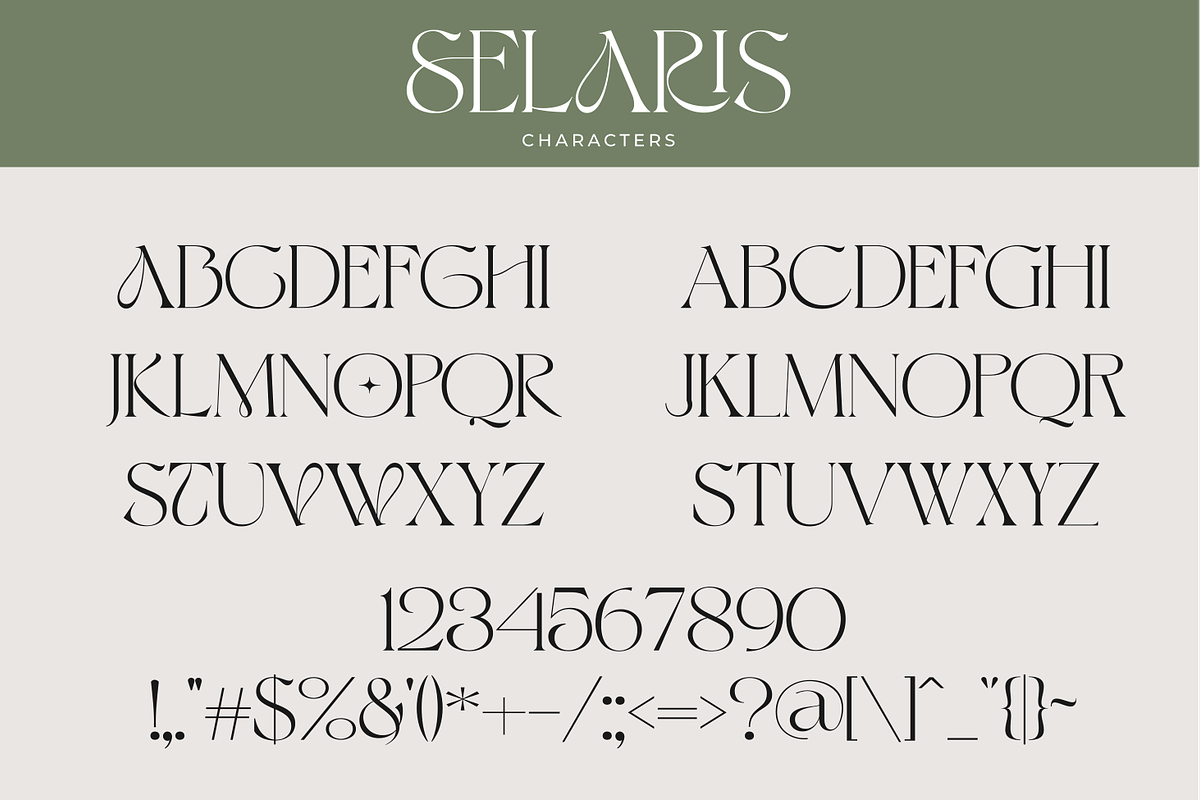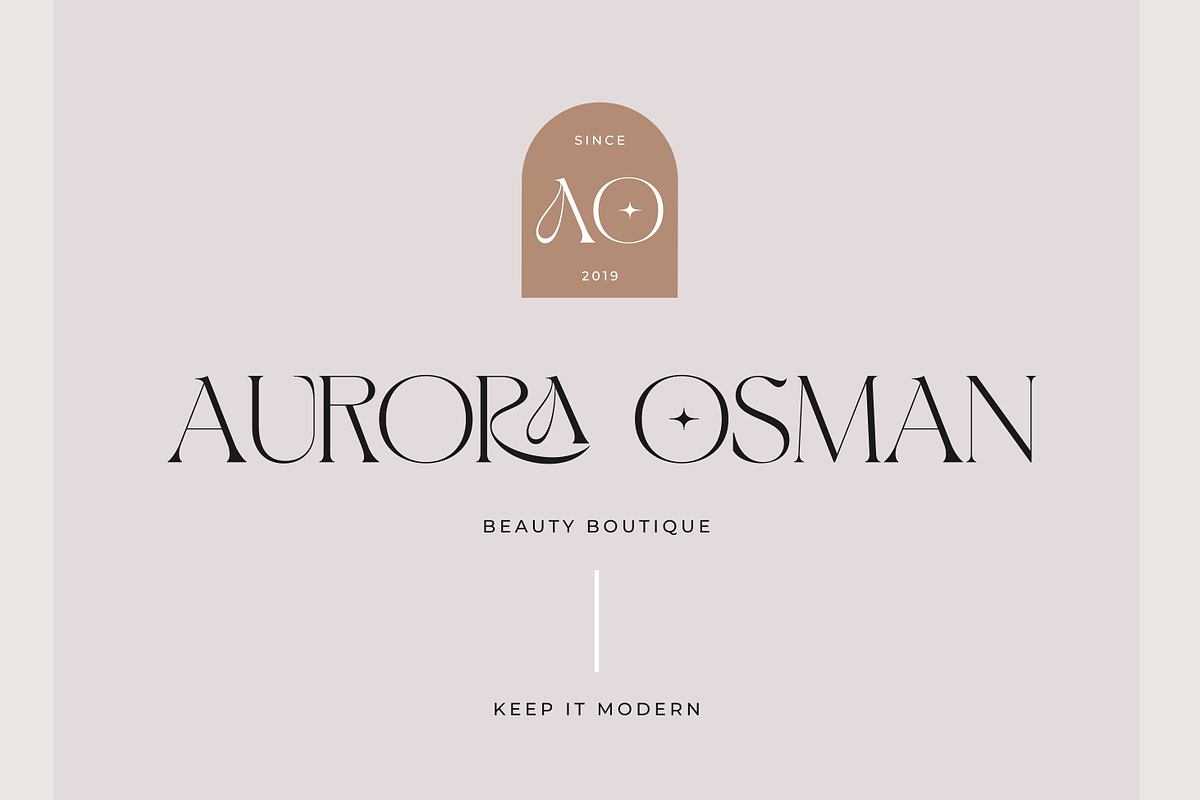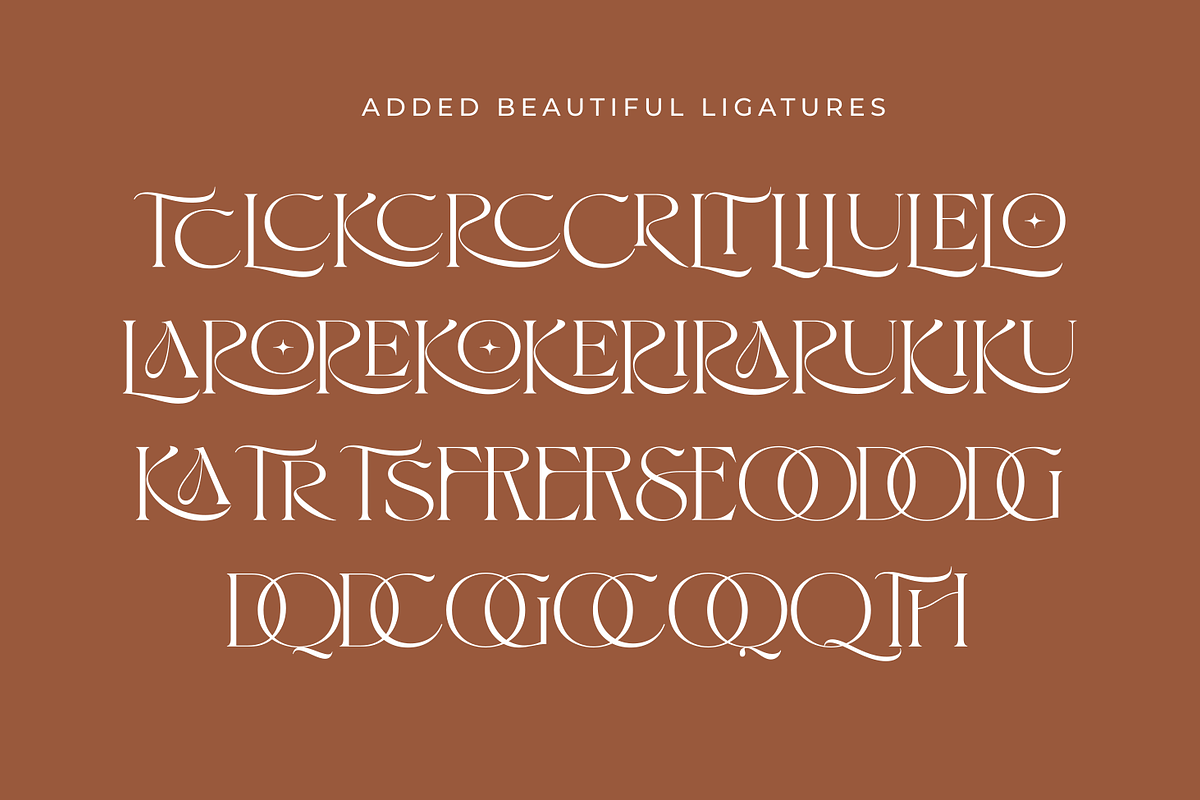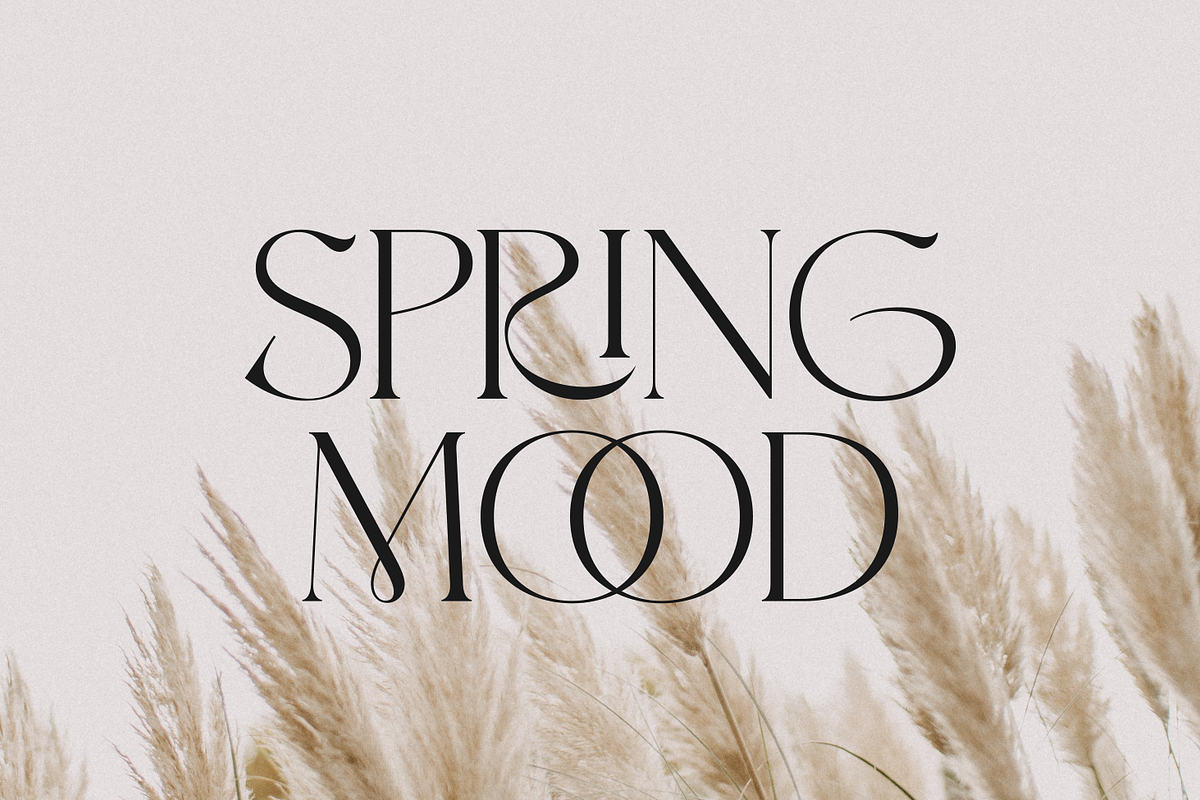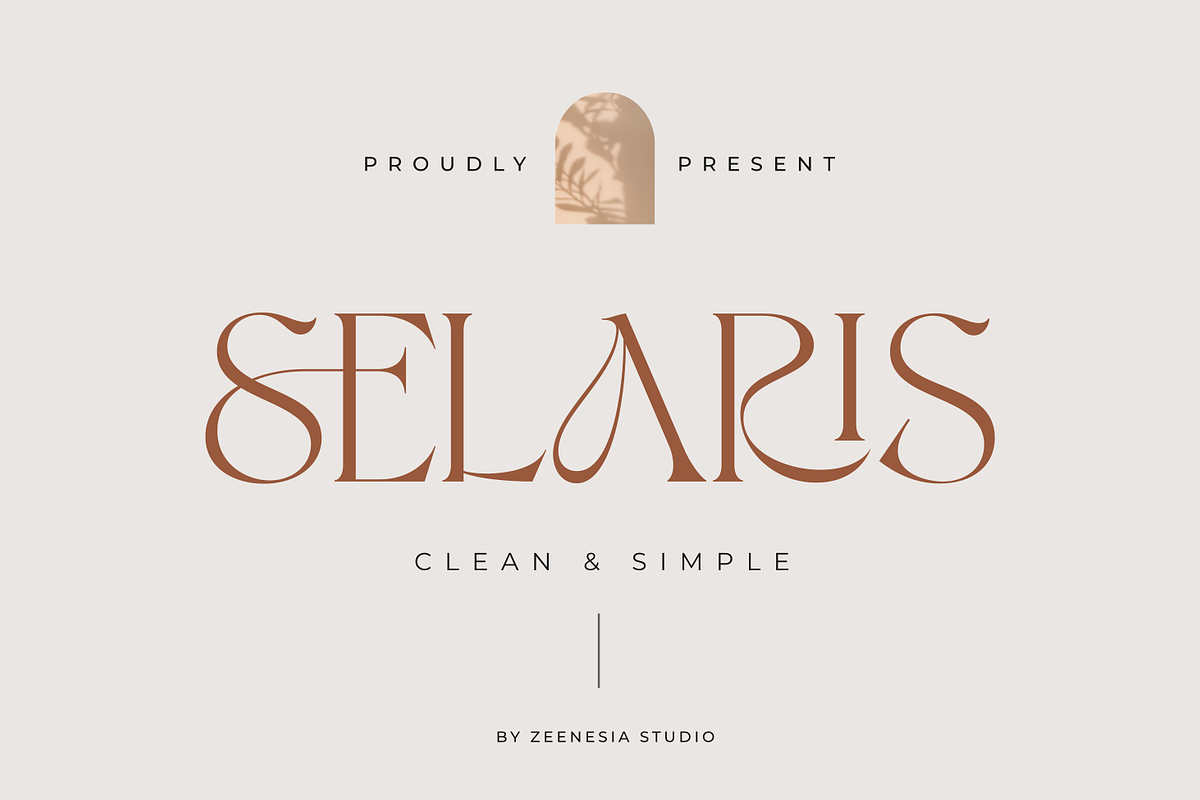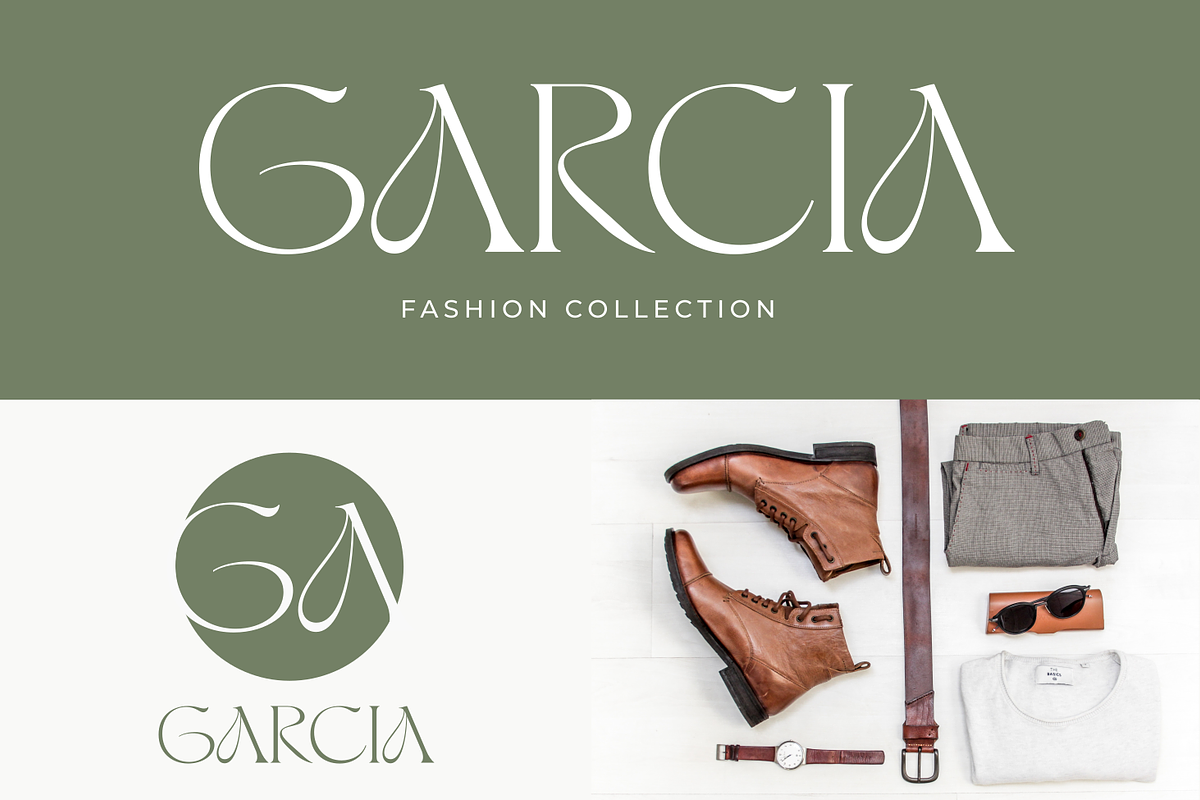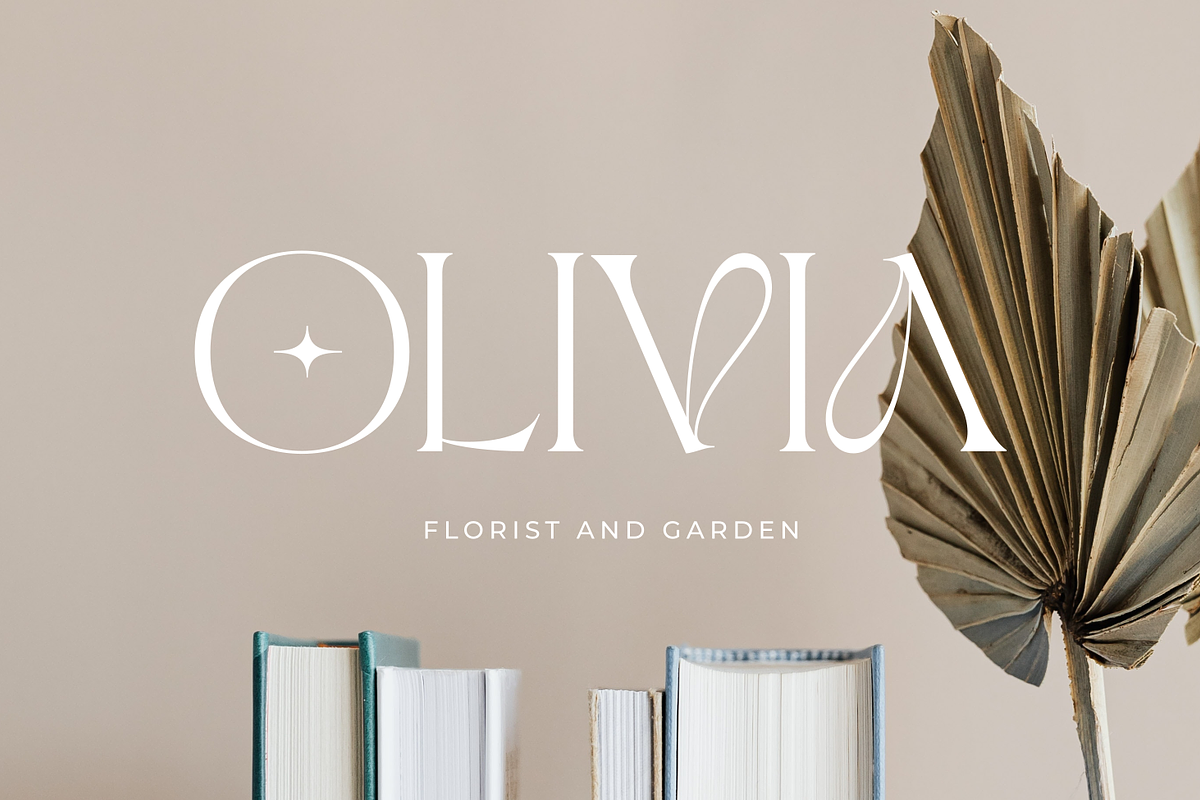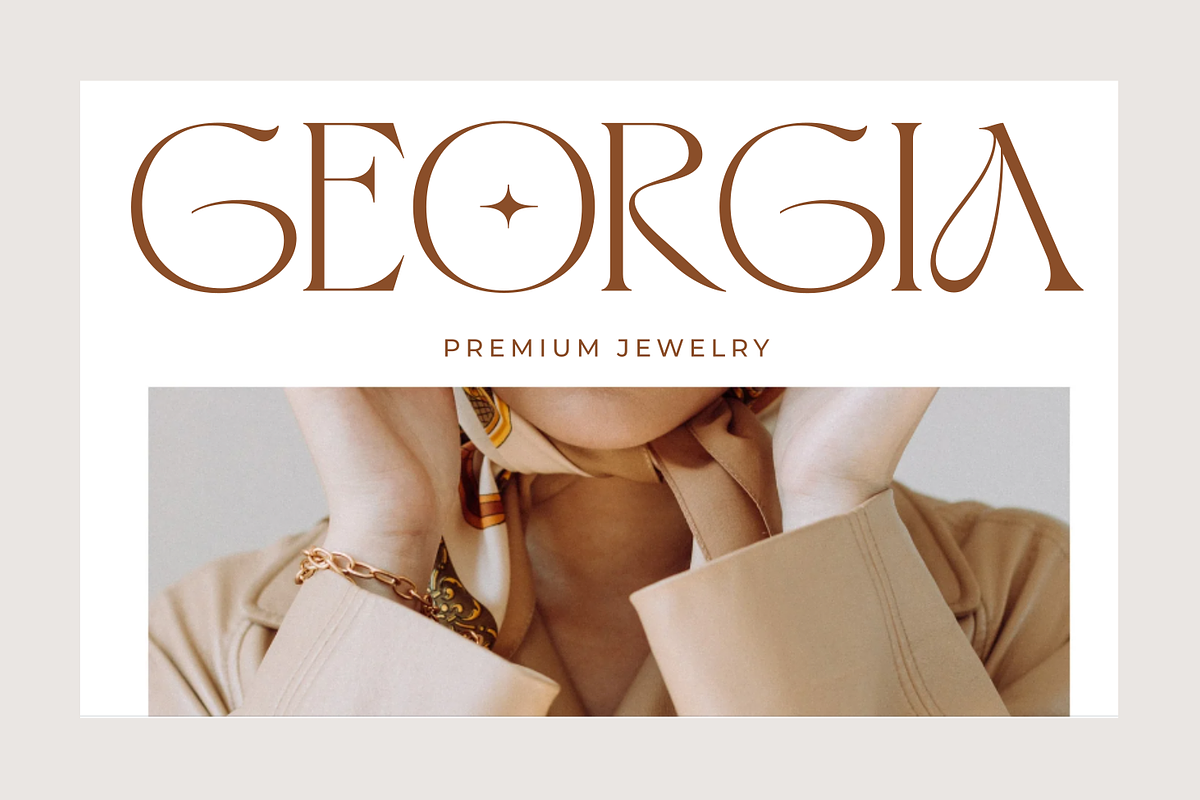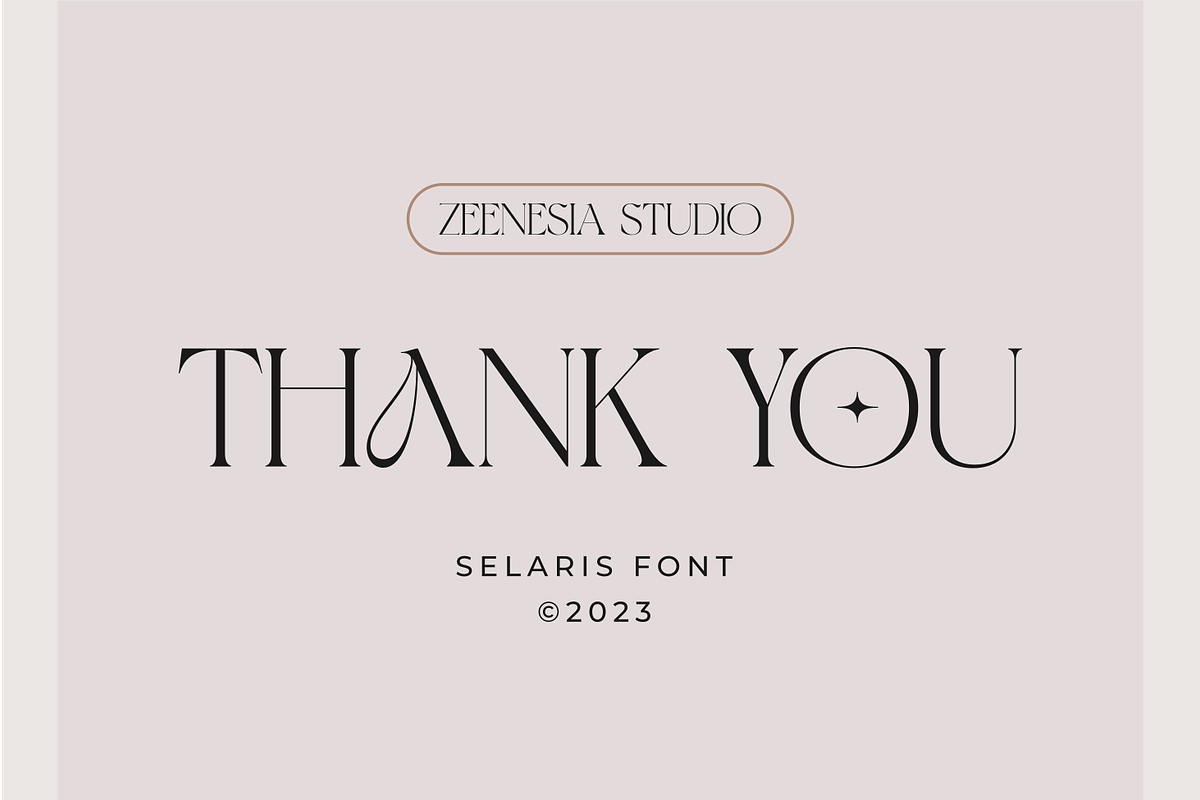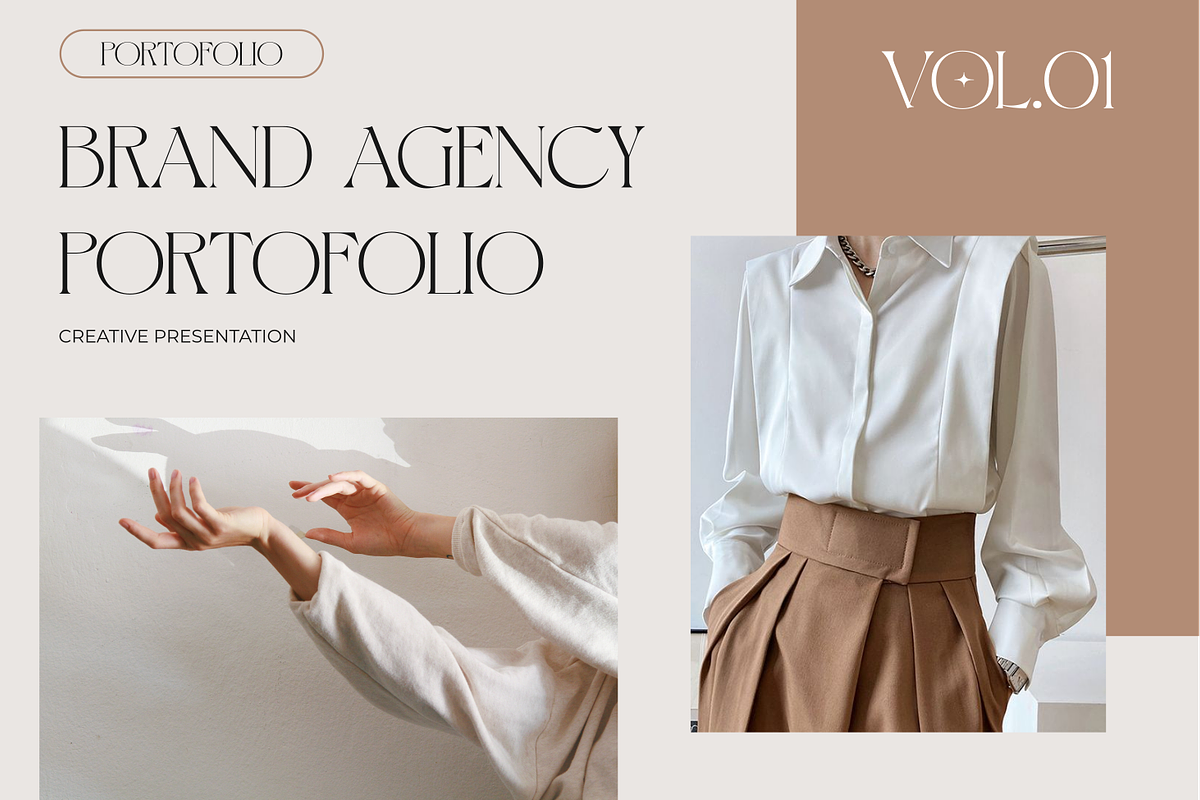
Selaris Modern Serif
Selaris is a beautiful and feminine serif font created by a romantic and lovely look. Selaris was built with Open Type features, stylistic Alternate and Ligature makes your project will be awesome.